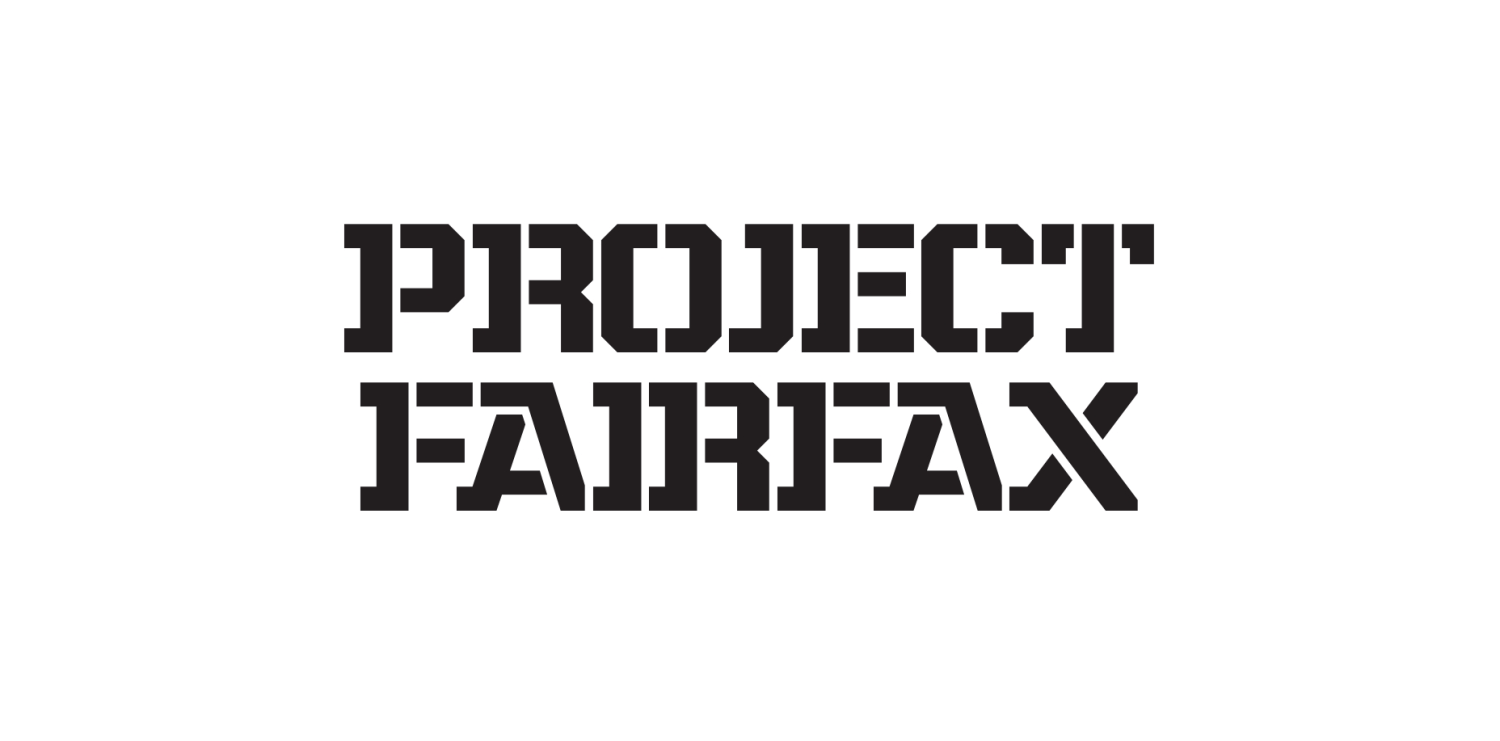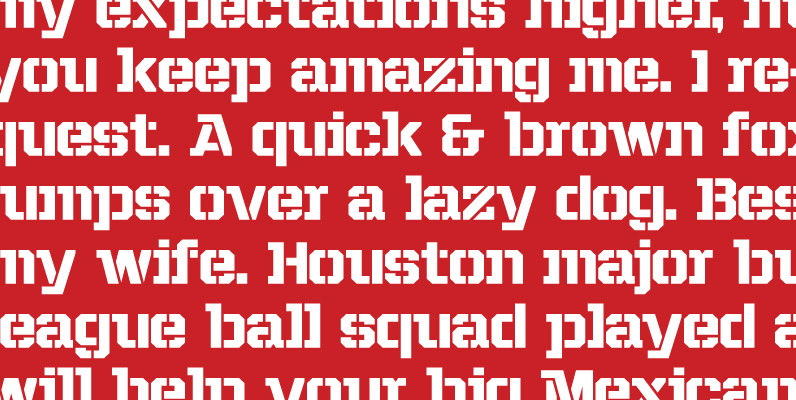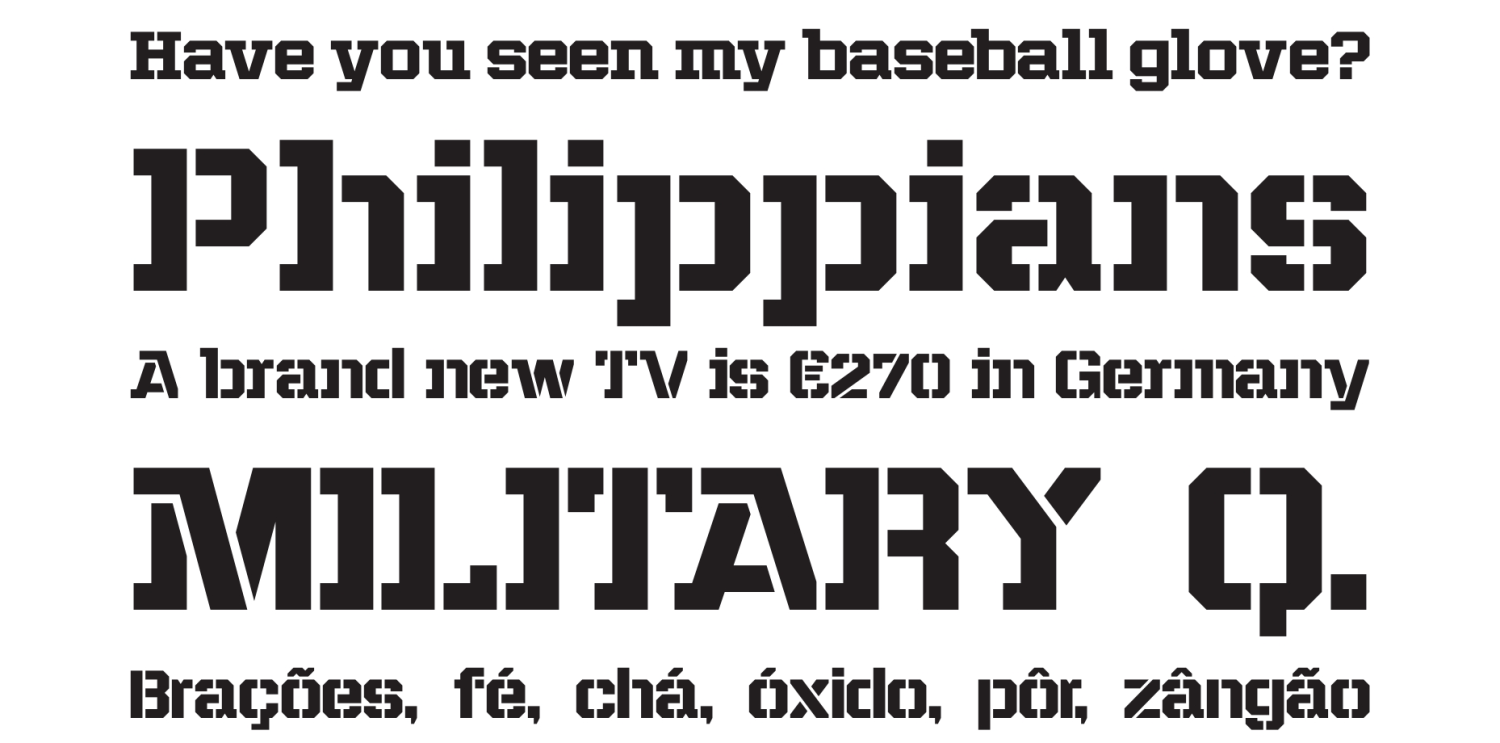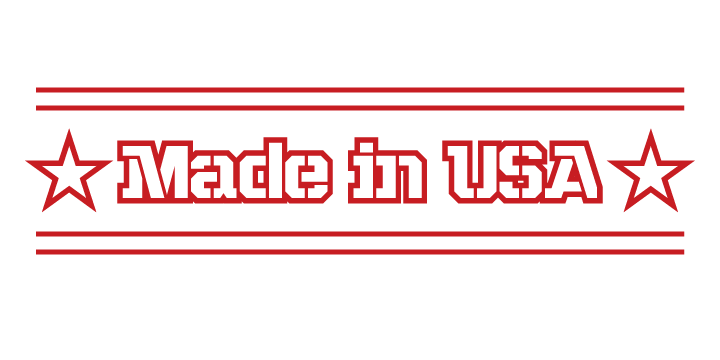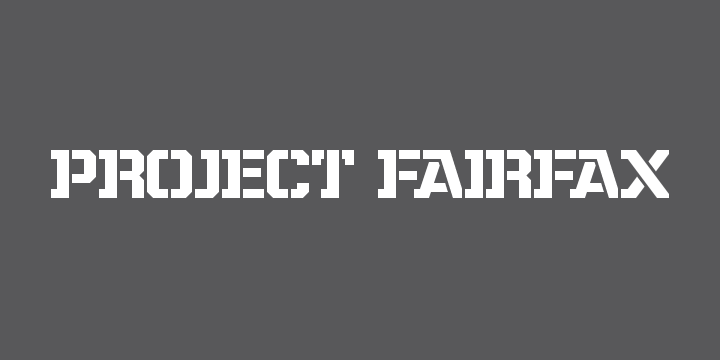
Project Fairfax
Font Family by Miller Type Foundry
Project Fairfax is a unique stencil typeface designed on a strict grid.
It is perfect for any stencil design, especially a military look. It comes in three styles, sans, regular, and slab; each with a non stencil counterpart. It comes with a full Latin character set, tabular and lining figures, numerous ligatures, and stars and arrows for ornaments.